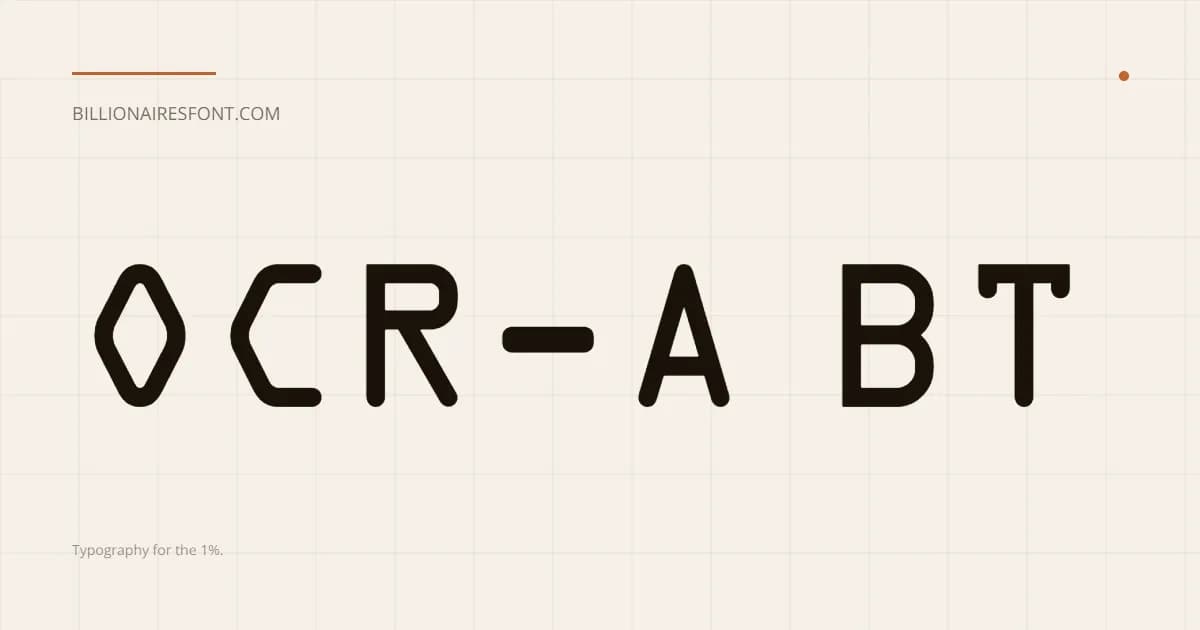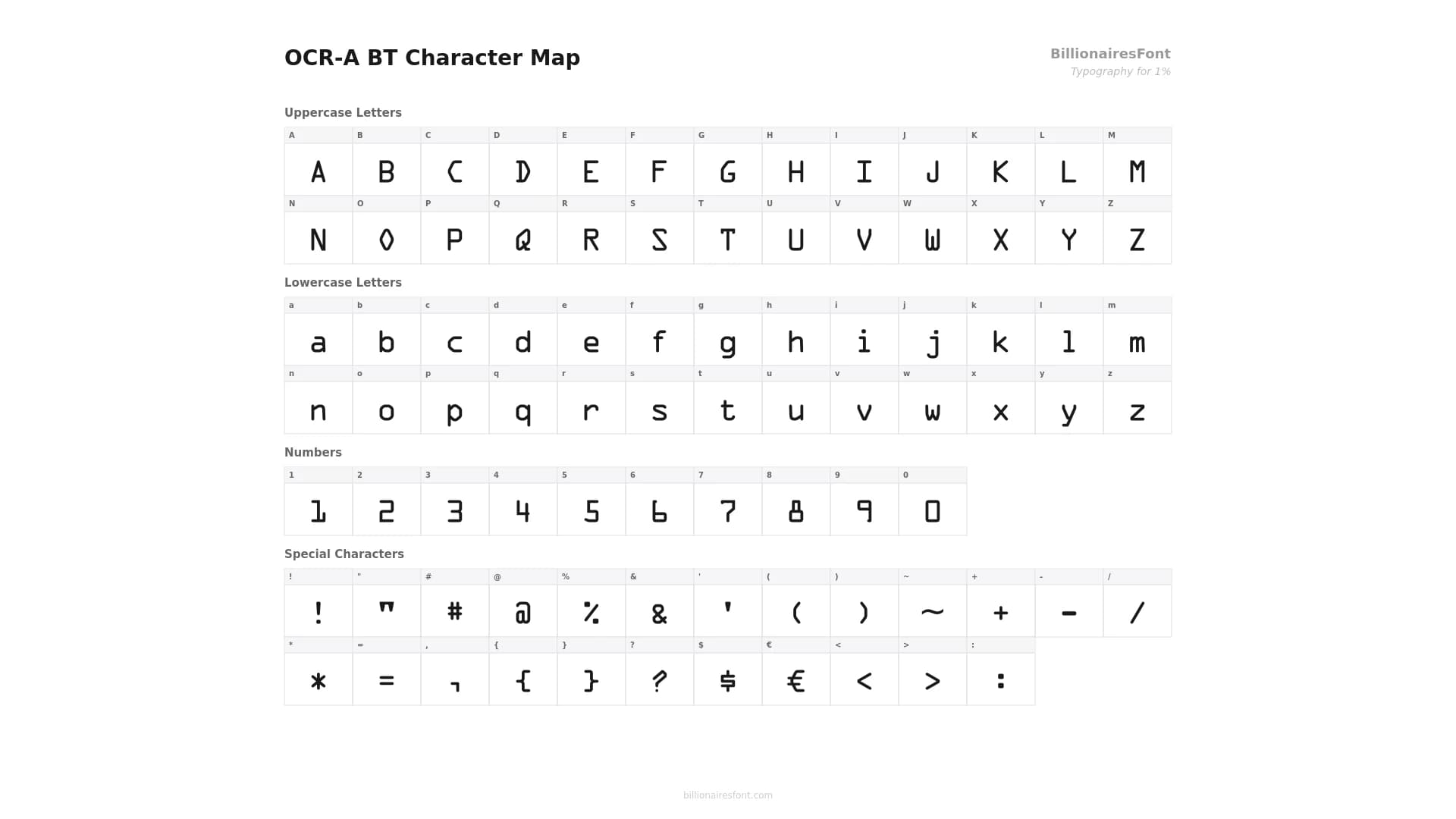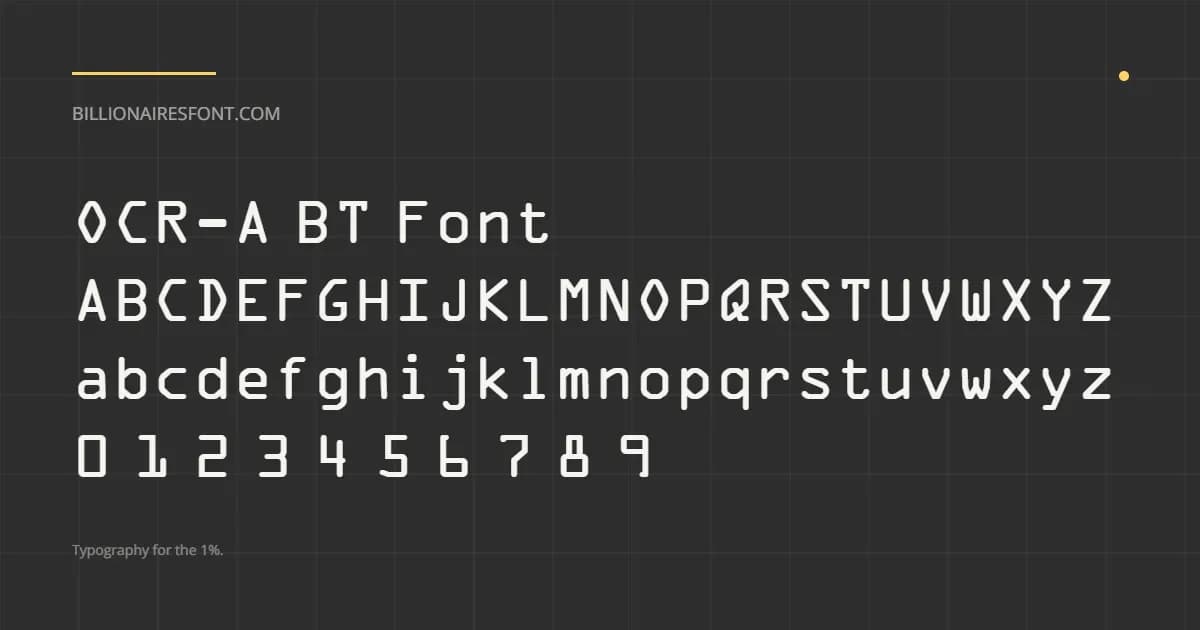
OCR-A was not drawn for people. American Type Founders designed it in 1966 so that optical character recognition scanners could read printed text off bank cheques, credit card slips, and business forms. Each glyph follows a strict geometry set by the U.S. Bureau of Standards: thick, simplified strokes with exaggerated distinctions between characters that machines might confuse (the 8 and the B, the 0 and the O, the 1 and the I). The design was standardized as ANSI X3.17-1981 and adopted internationally as ISO 1073-1:1976. OCR-A BT is Bitstream's digital cut of that standard, a single-weight monospace covering Basic Latin, and it is available here as a free download for personal use in TTF, WOFF, and WOFF2 formats. The same ugliness that makes it hard to read at body-text sizes is what makes it useful now in a second life: graphic designers pull it for tech branding, sci-fi interfaces, passport and ID card mockups, and anything that needs to signal "machine-processed." It shows up in TV subtitle overlays (Blacklist) and sits in MoMA's permanent collection. Set it large, where the rigid geometry reads as intentional. For an OCR face with better human readability, look at OCR-B, Adrian Frutiger's 1968 redesign of the same concept. For general-purpose coding monospace options, see Fira Code or Inconsolata . Switch formats with the Free Font Converter AI tool .